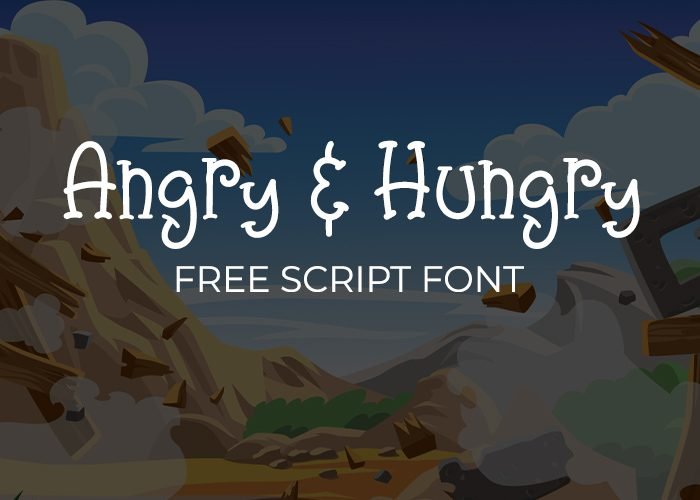
Angry & Hungry Free Script Font!
If you’re looking for a font that packs a punch, look no further than Angry & Hungry.
The Angry & Hungry is the perfect script font to add some attitude to your designs. This font is edgy, bold, and full of personality. It’s ideal for anything from rebellious posters to attention-grabbing social media graphics.
Angry & Hungry is a versatile font for your design projects. Its funky lettering and playful vibe make it stand out on any background. While its flowing script adds a touch of elegance to the design.
Create eye-catching posters, stylish logos, and quotes that will leave a lasting impression. Whether you’re designing for a rock concert or a hip coffee shop, Angry & Hungry is the perfect font to add some edge to your project. It’s easy to read, use, and guaranteed to grab the attention of anyone who sees it. So, download it today and start creating designs that are sure to make a lasting impression!
Preview of Angry & Hungry Free Script Font: